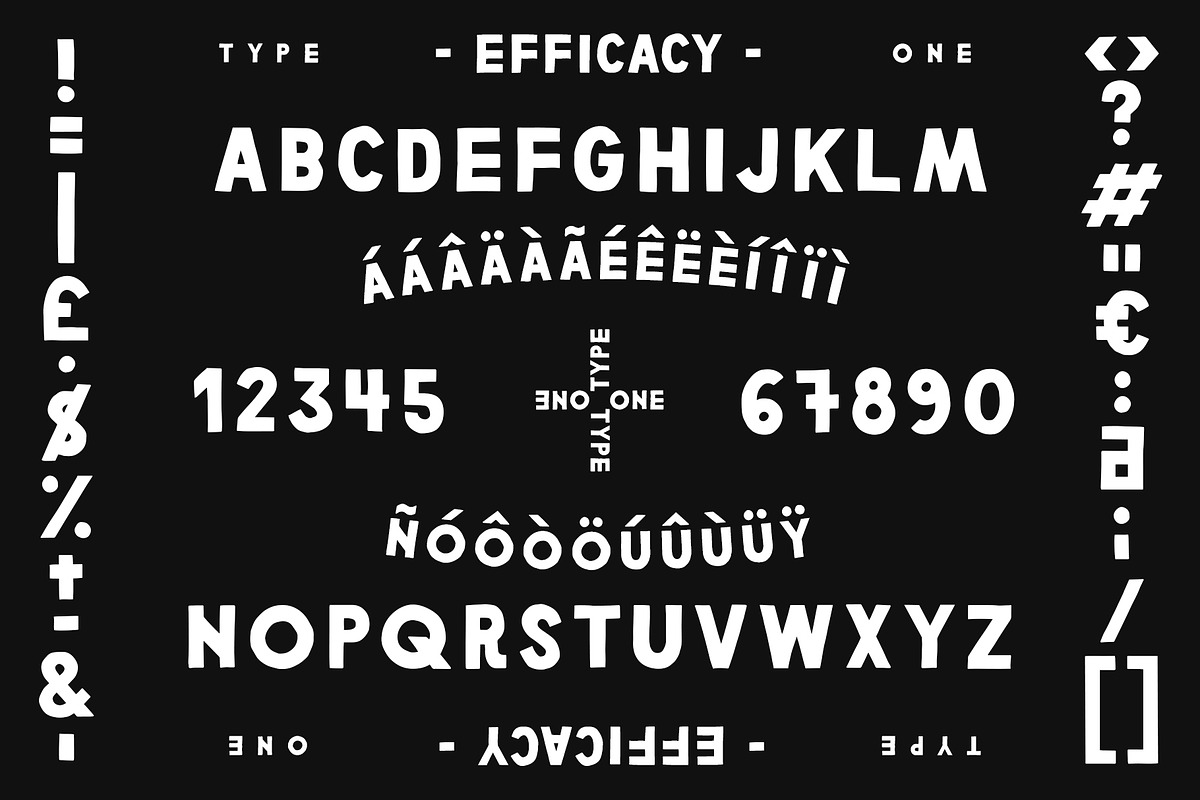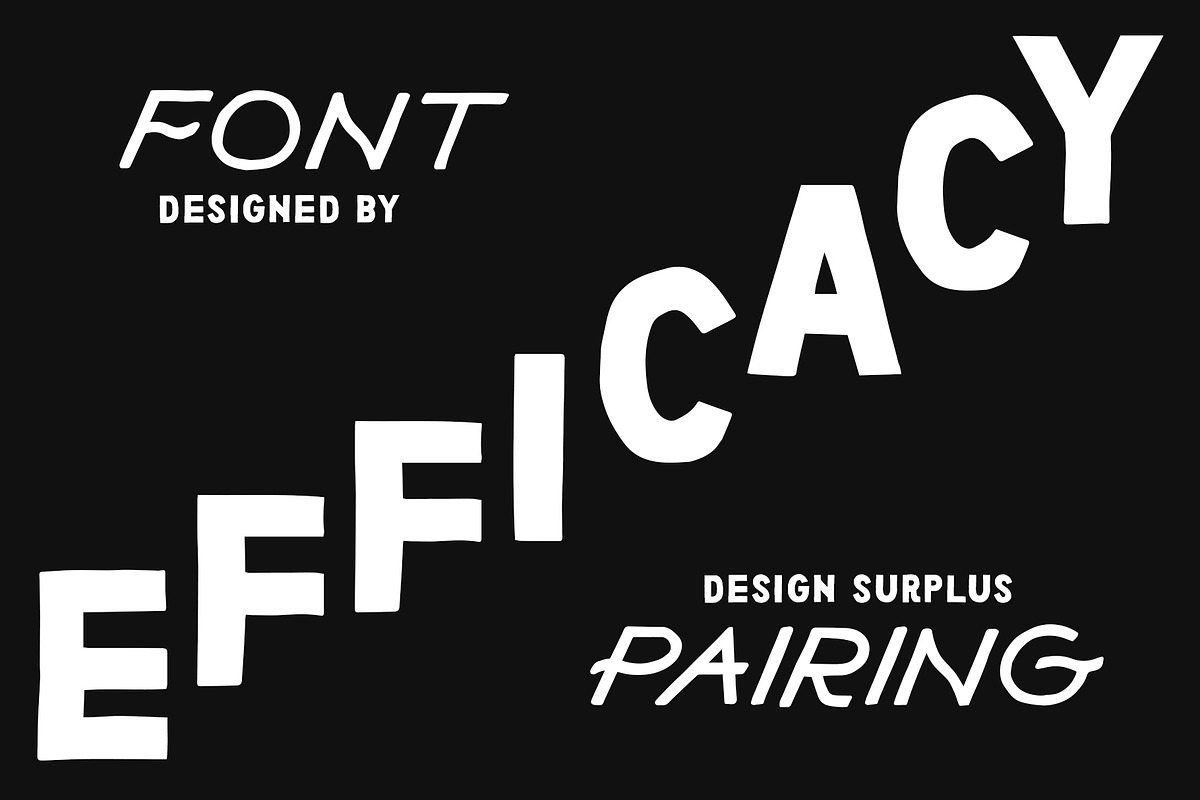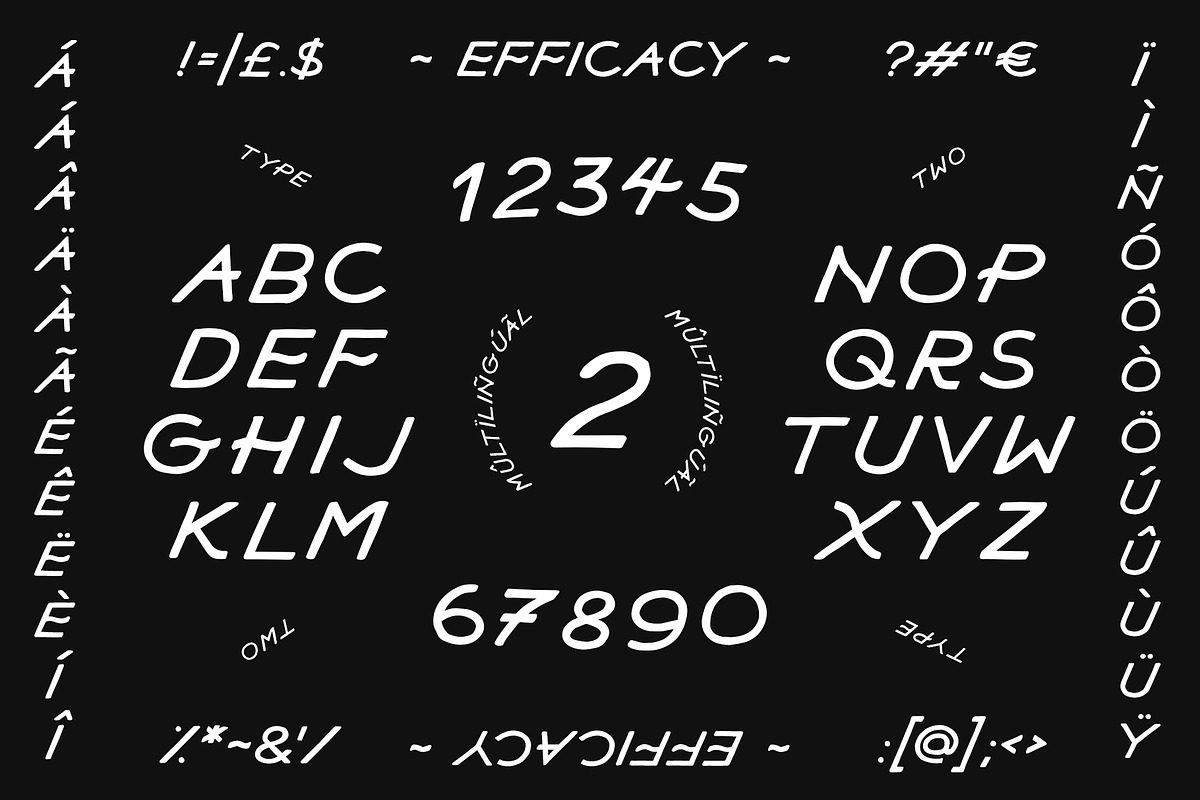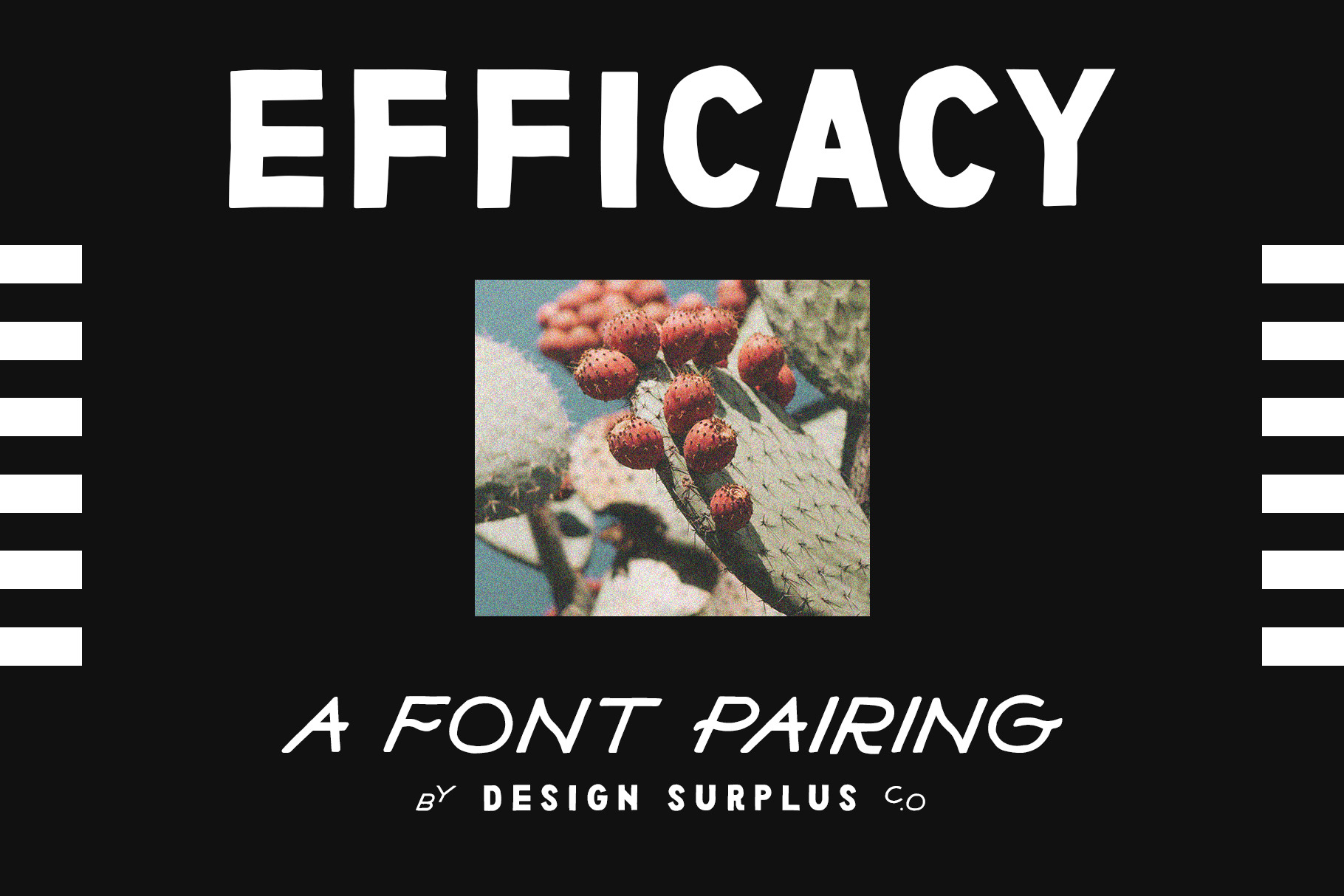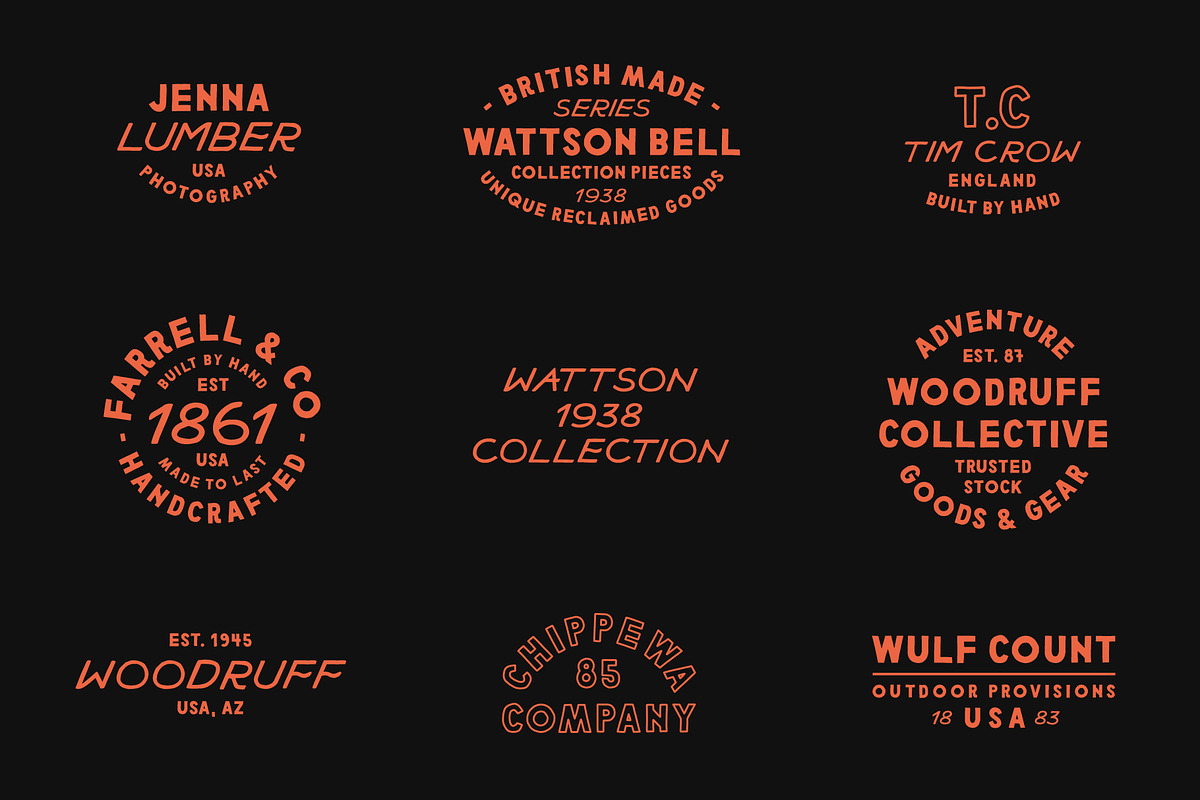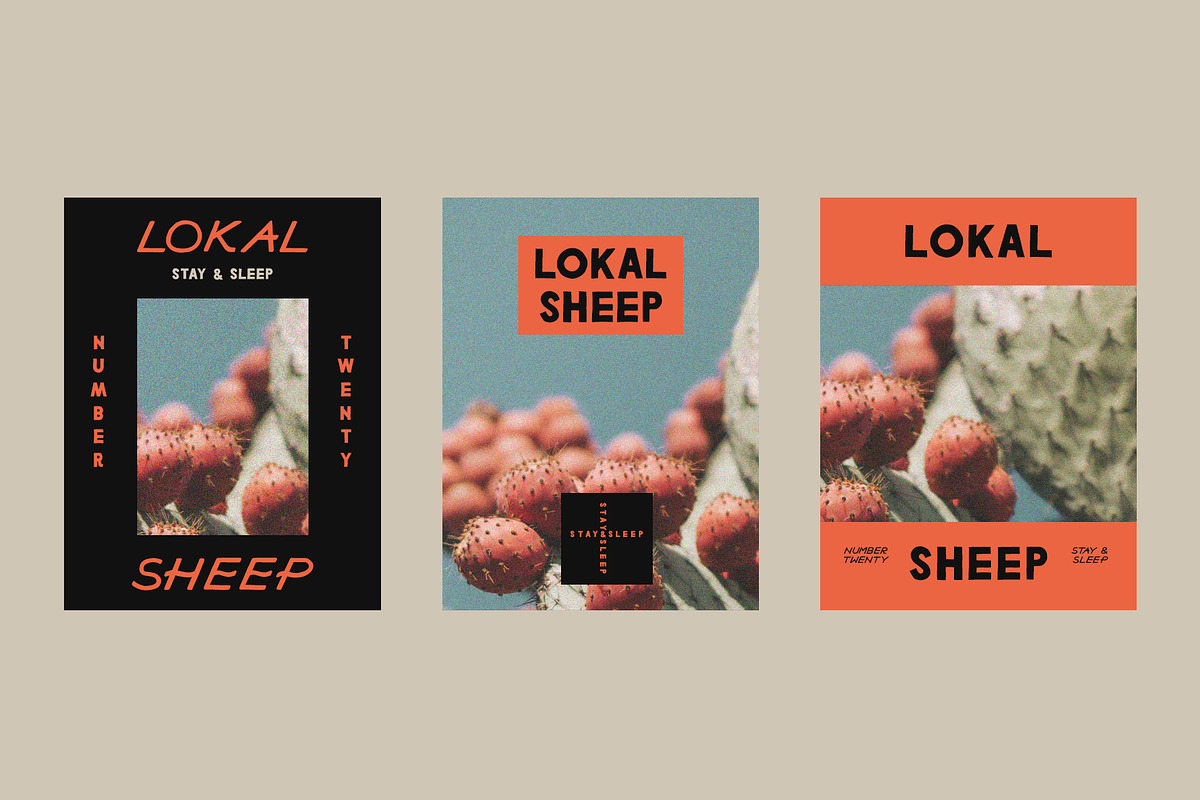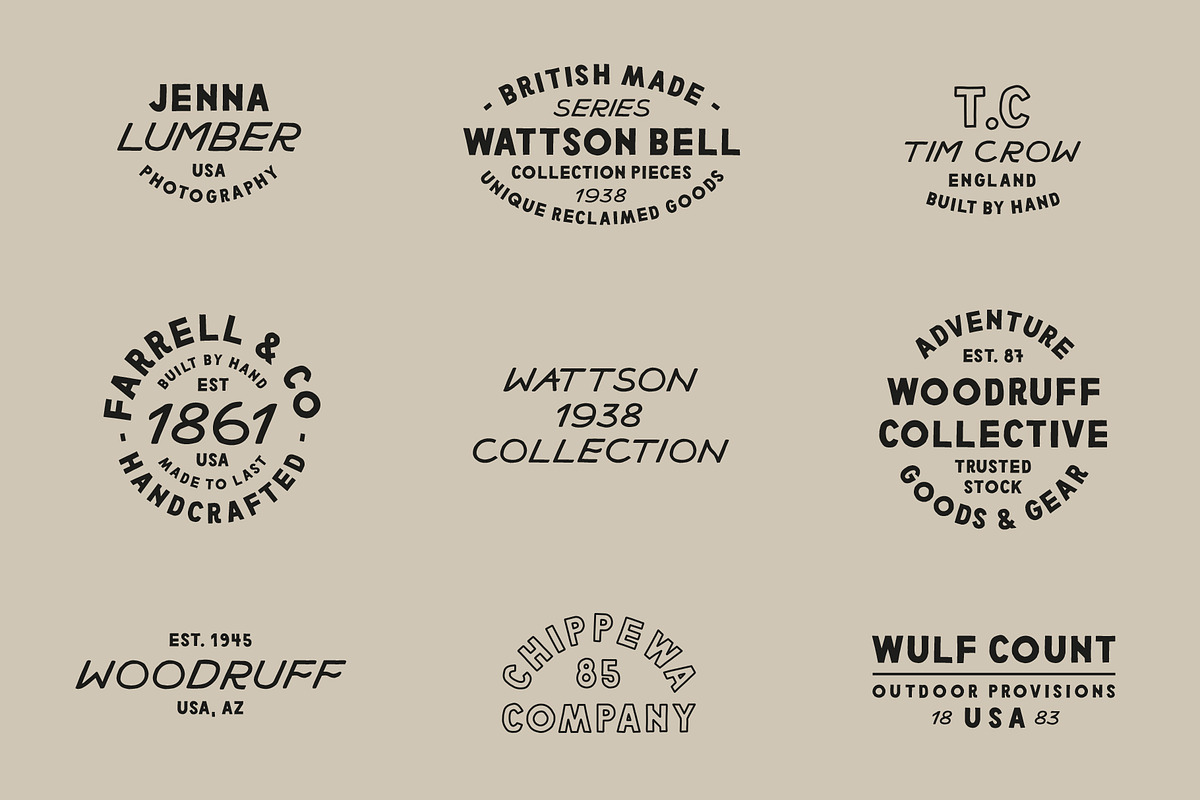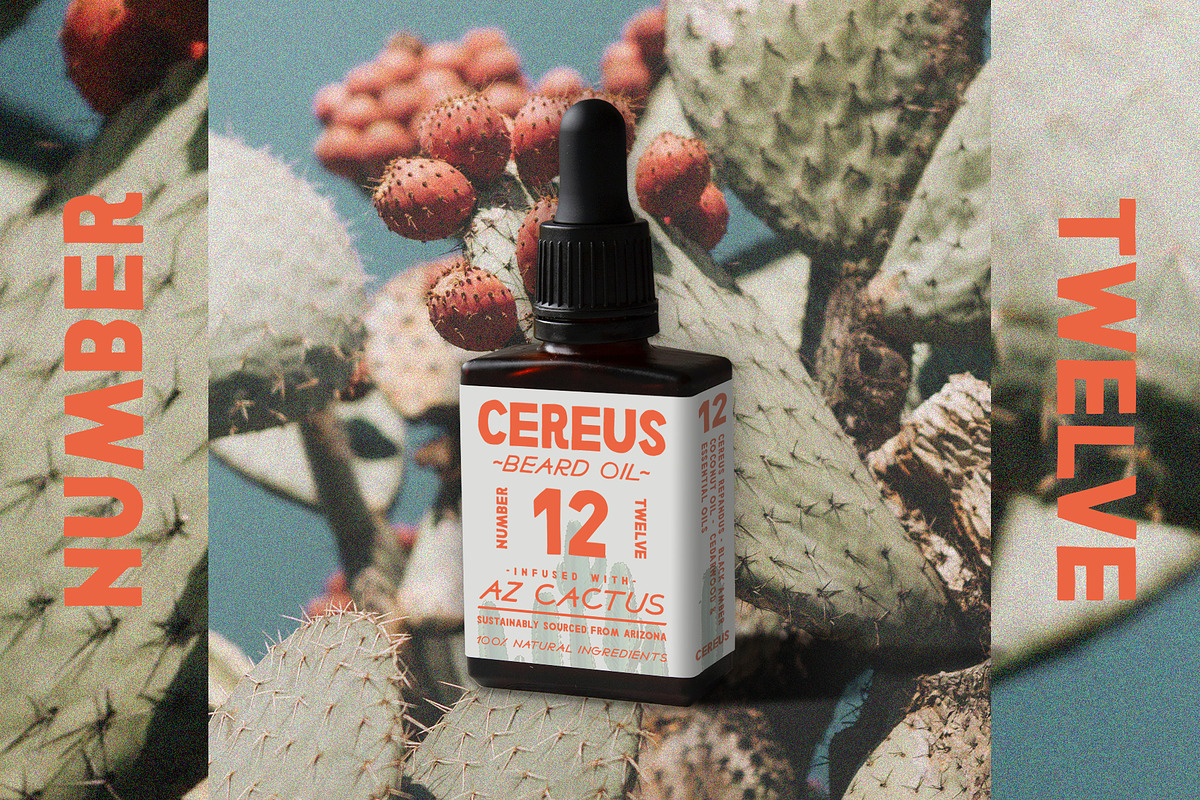
Efficacy Font Pairing + BONUS Logos
Efficacy is a hand lettered font pairing from Design Surplus, drawn to make a statement. Equally perfect for bold headings, branding and lettering pieces - don't believe us? Just take a look at the 9 bonus logo designs included with Efficacy - all fully editable in Illustrator and Photoshop.